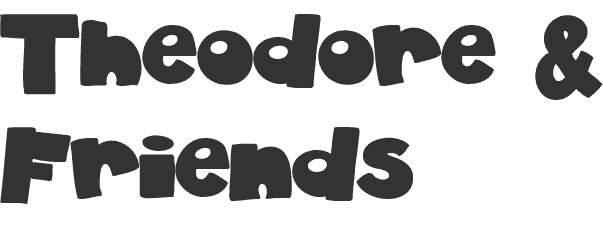
What font? (Theodor & Friends)
As usual...the experts will answer this in a sec but i was wondering what Font this could be?
It is a very nasty excuse for a typeface!